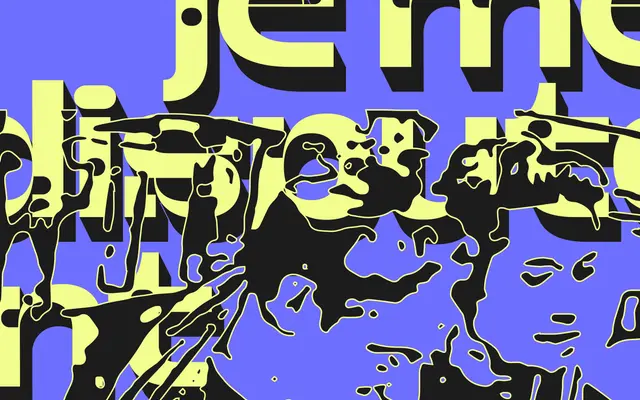
Missouri
Off Type · Valerio Monopoli
A wide, chunky display grotesque by Valerio Monopoli, named after his local cinema and built around broad cinemascope proportions with aperture-inspired ink traps.
Four weights run from 8mm to 70mm, each carrying the same 489-glyph set and available as a variable font. The design translates the wide-screen ratio of cinema into squat, bold letterforms punctuated with ink traps that echo film-reel sprockets. Best suited to posters, titles and branding where the letterforms can be set at size.
A chunky, wide-proportion bold grotesque designed explicitly for large-scale display use, with aperture-inspired ink traps and broad cinemascope proportions that place it firmly in the display category.